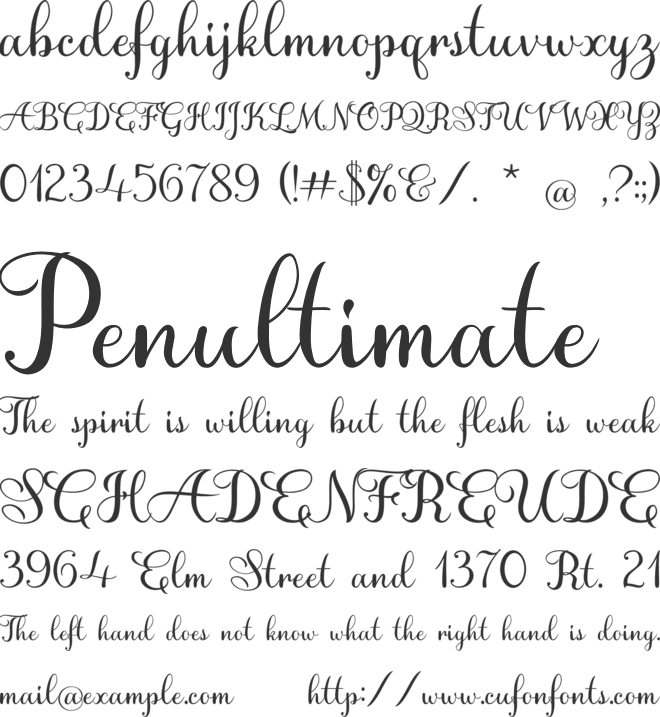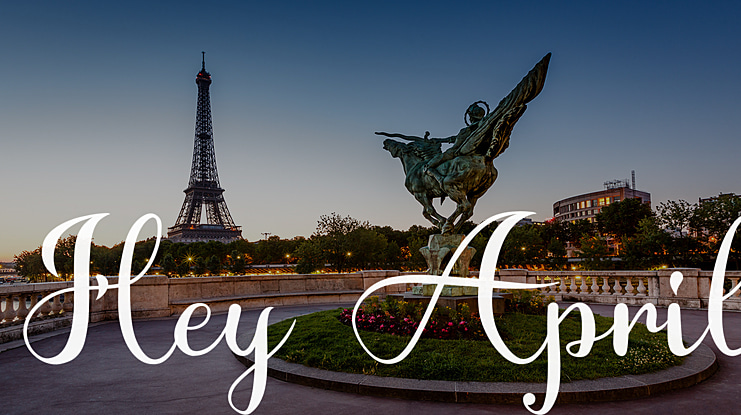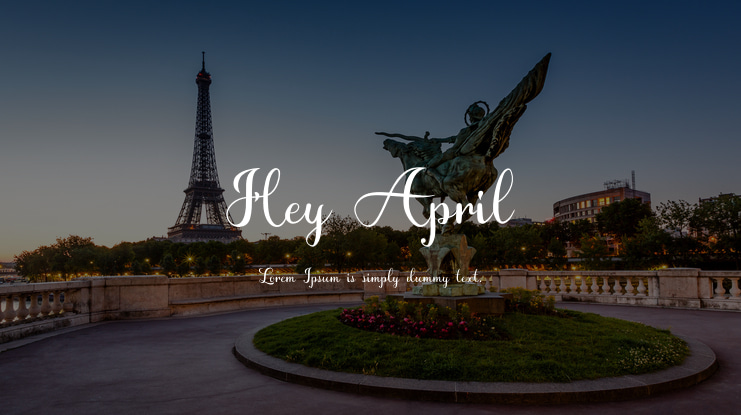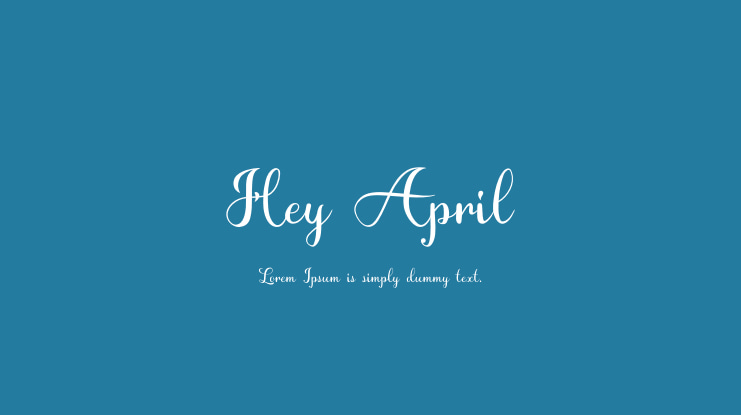
Hey April Font
This is a modern handwritten script font with a classic and evergreen touch, Suitable for every design needs, such as craft, banner, t-shirt, etc.
For those who looking for a beautiful and lovely feel, this font is perfect. This lovely font already supports with many languages.